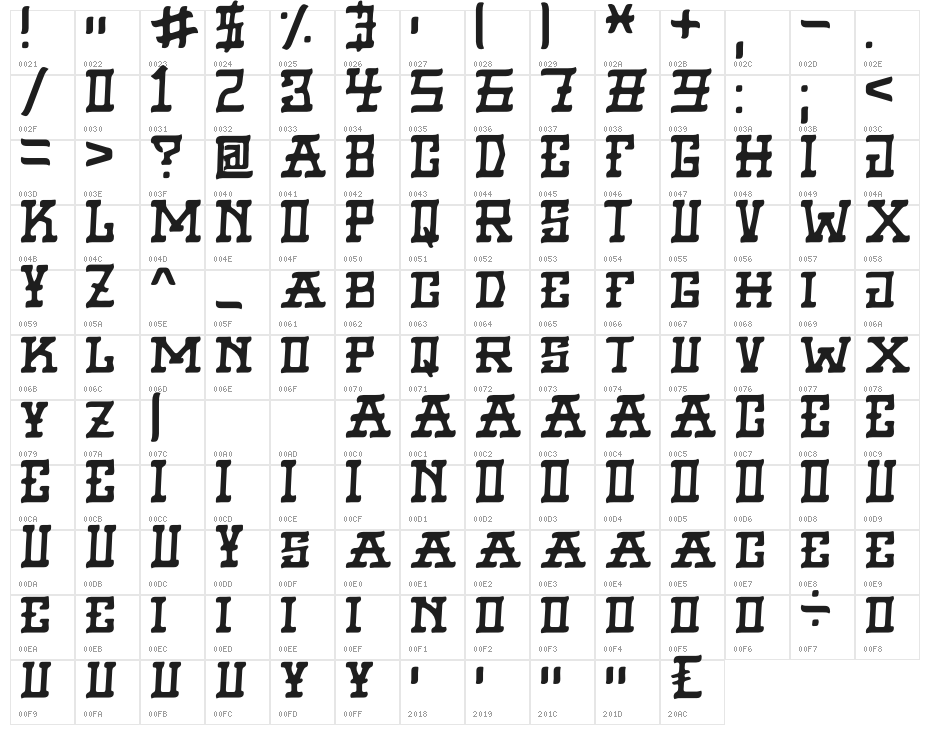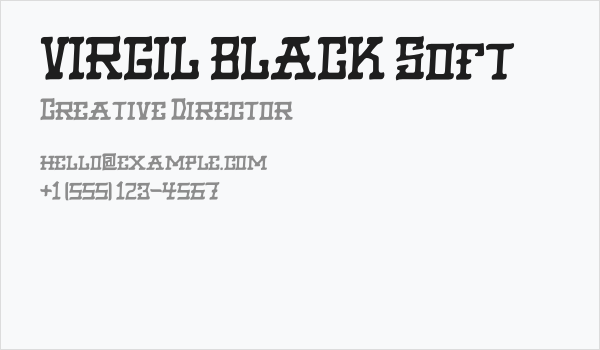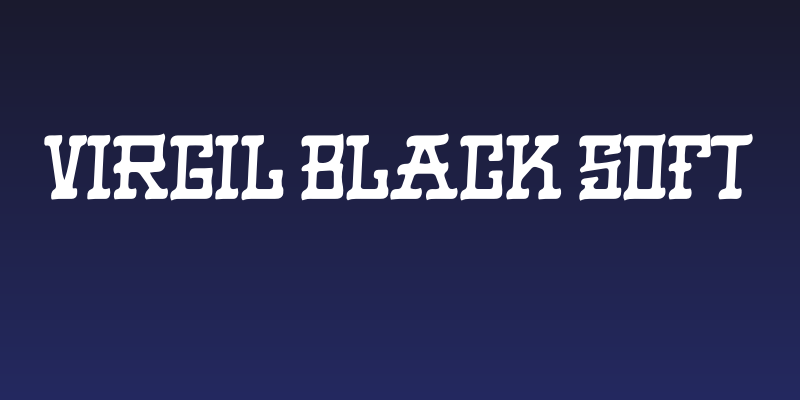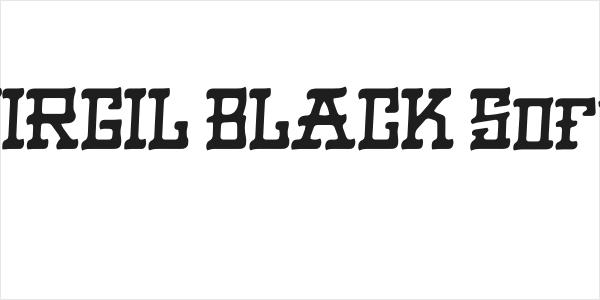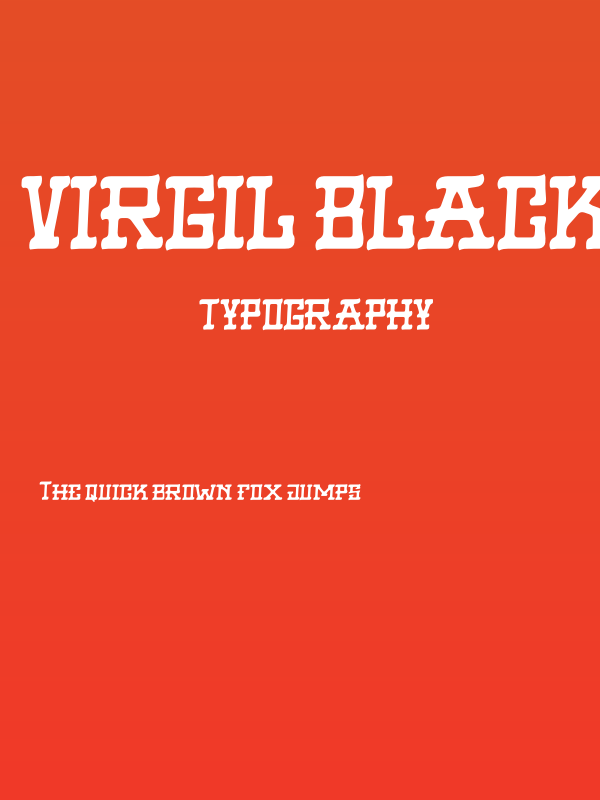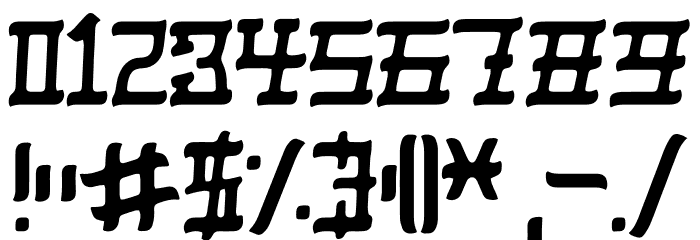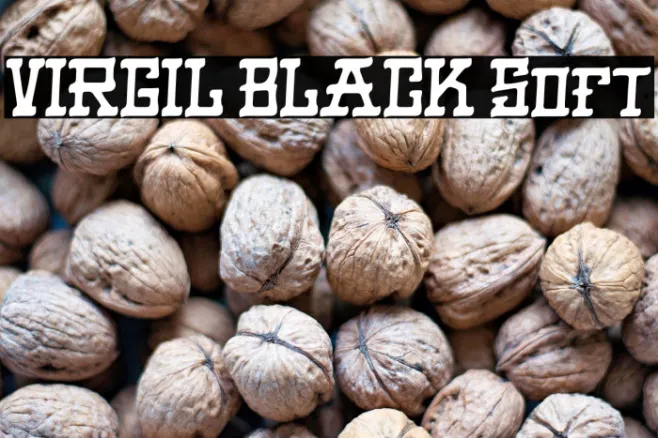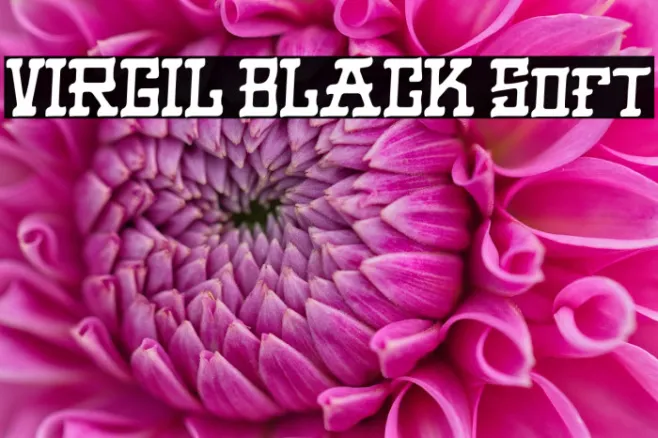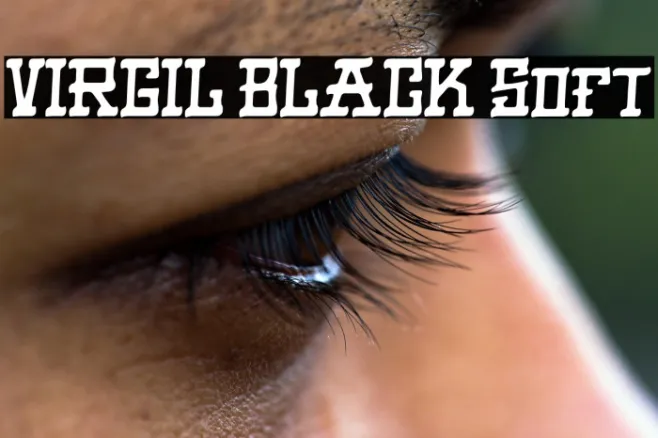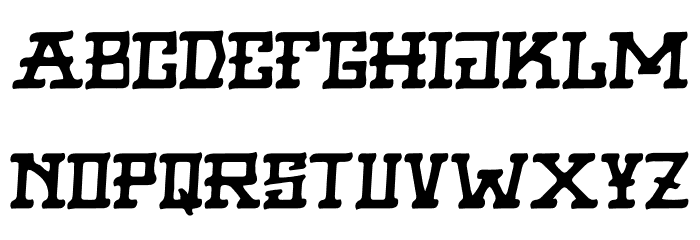
VIRGIL BLACK Soft Font
VIRGIL BLACK Soft Description
This font features a bold and striking design with a strong presence. The characters are crafted with a unique blend of geometric and decorative elements, giving it a distinct and memorable appearance. The uppercase letters are robust and angular, while the lowercase letters maintain a consistent style, ensuring readability. The numbers and special characters are designed to match the overall aesthetic, providing a cohesive look across all elements. The thick strokes and sharp edges contribute to its boldness, making it suitable for impactful designs.